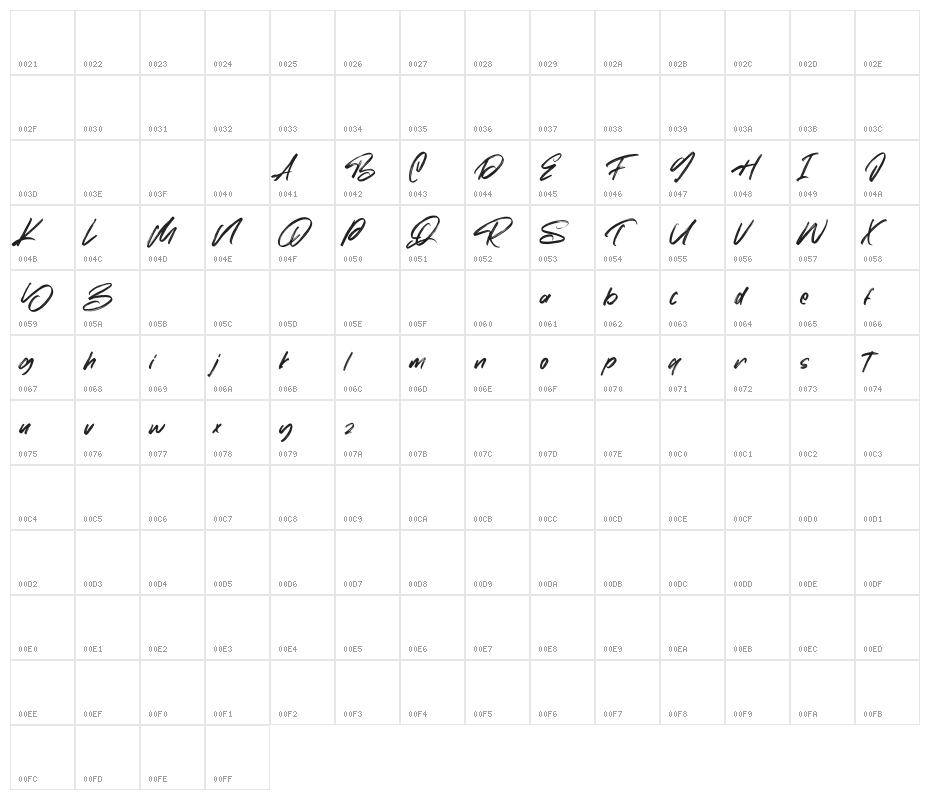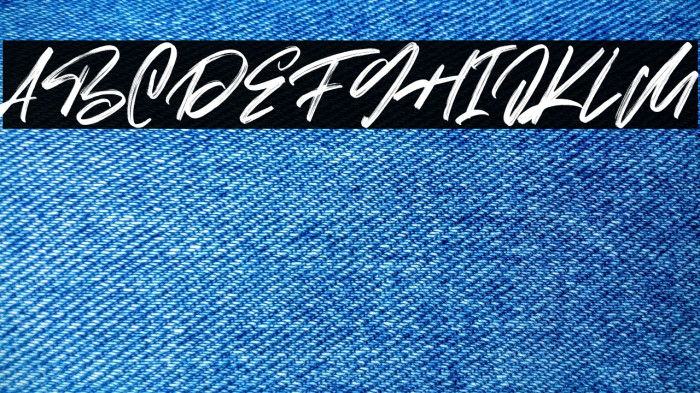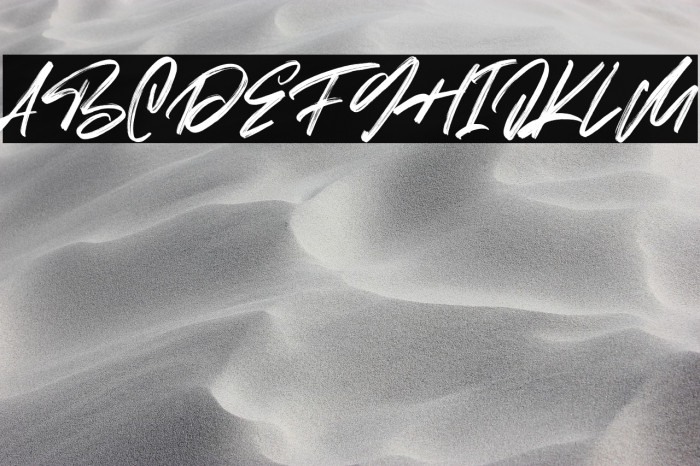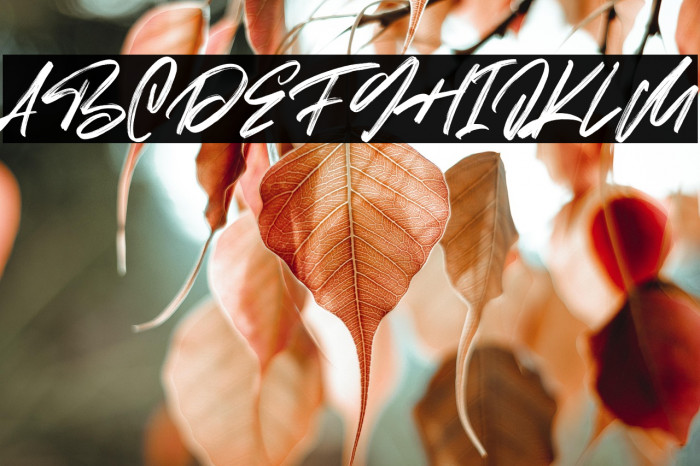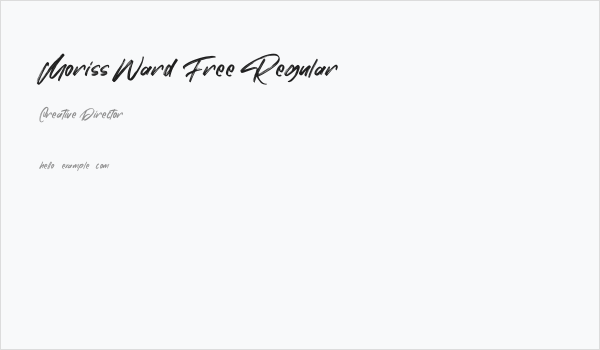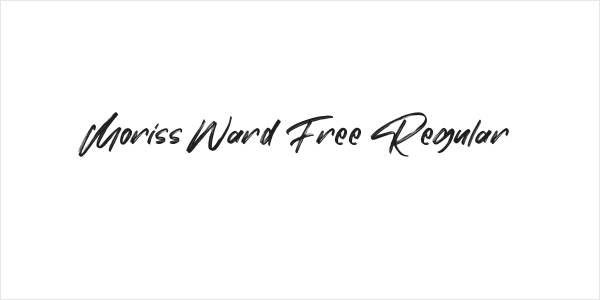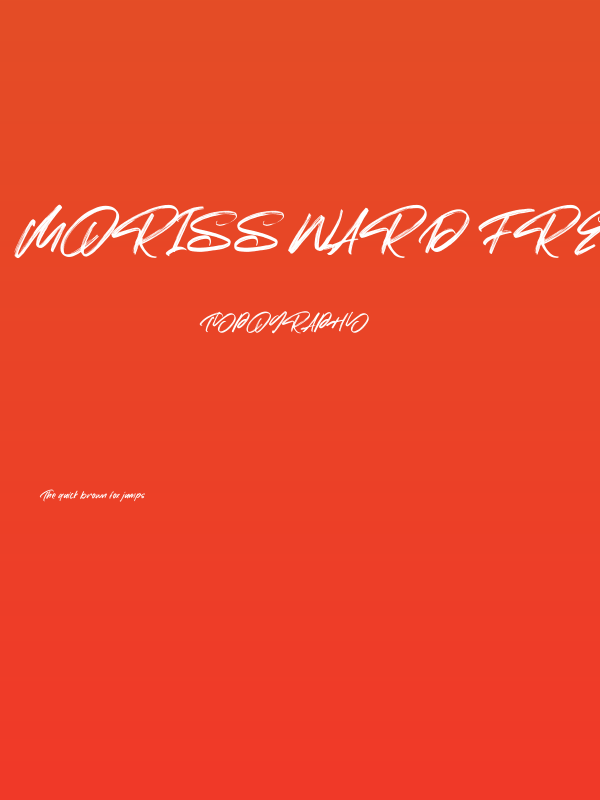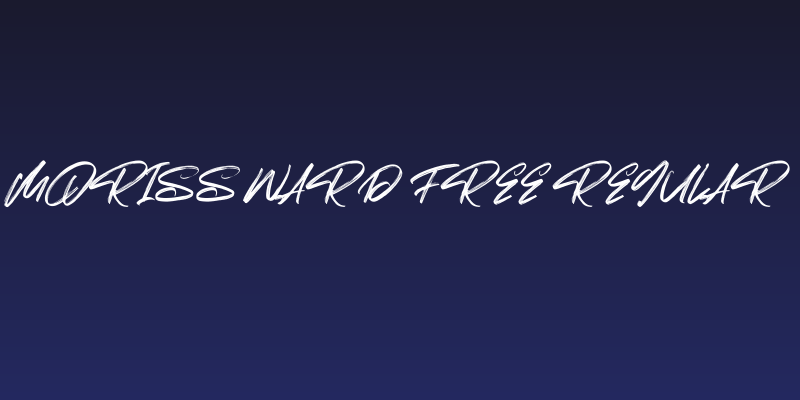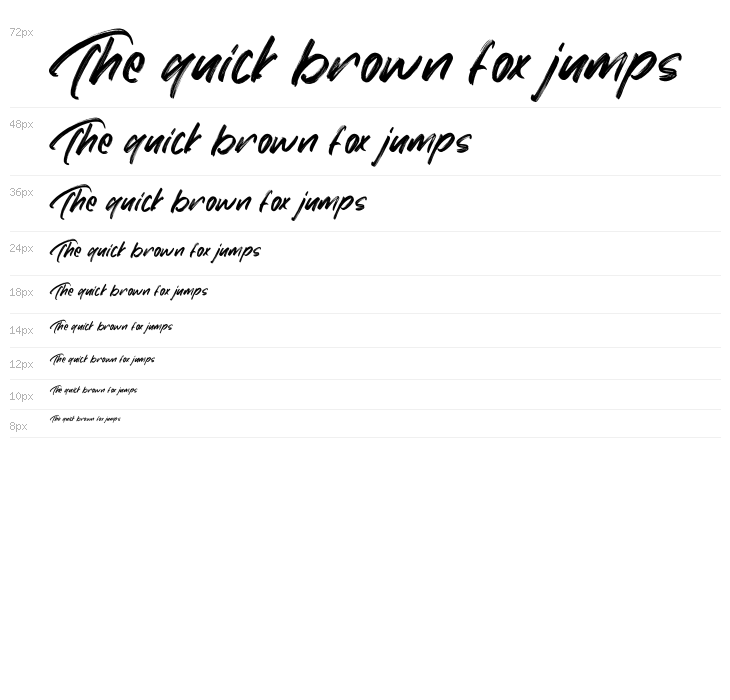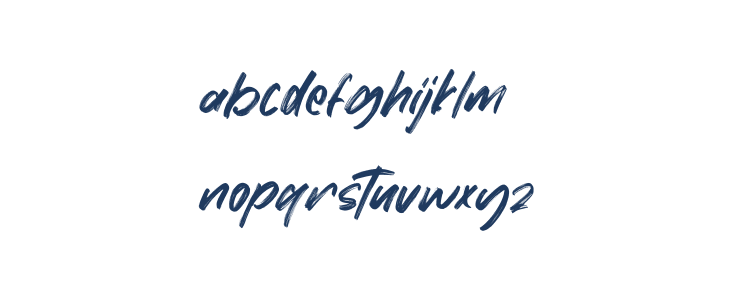
Moriss Ward Free Regular Font
Moriss Ward Free Regular Description
This font features a dynamic and expressive handwritten style, characterized by its fluid and energetic strokes. The letters are crafted with a sense of movement, giving them a lively and artistic appearance. The uppercase letters are bold and prominent, while the lowercase letters maintain a consistent flow, enhancing readability. The numbers and special characters are designed to complement the overall style, ensuring a cohesive look across all elements. This font's unique personality makes it suitable for creative and informal applications.